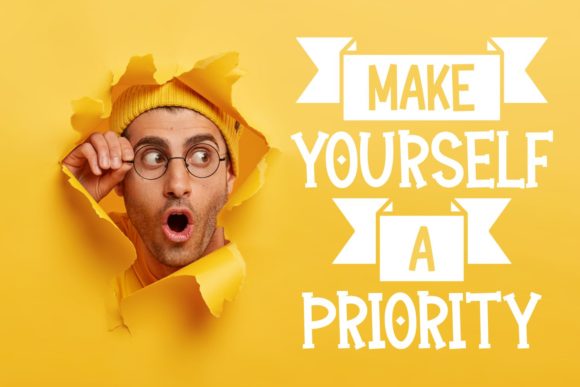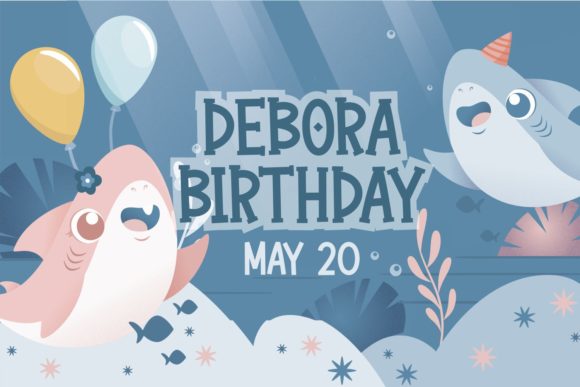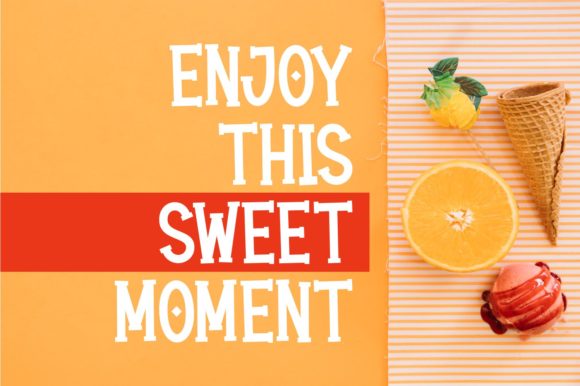
Introduction to Our Home Play Font
Have you ever been sitting in the stands, watching a thrilling sporting event, and thought to yourself, “This moment needs a font to match its energy”? That’s exactly what inspired the creation of Our Home Play Font – a bold, daring display font designed to capture the excitement of high-speed action. With its thick, chunky letters, Our Home Play Font is the perfect design resource for any project that needs to convey a sense of power and dynamism.
Whether you’re a designer working on a creative project for a sports team or a racing event, Our Home Play Font is a valuable addition to your design library. Its high-quality design makes it a great choice for any application that requires a clear and eye-catching visual identity. And the best part? Our Home Play Font is available for free download, complete with a transparent background, making it easy to integrate into your design.
Key Features of Our Home Play Font
- High-quality design resource perfect for a creative project, ideal for use in various applications such as logos, branding, and graphics.
- Unique, playful design featuring a transparent background, allowing for easy layering and customization.
- Comprehensive character set, including uppercase and lowercase letters, numbers, and special characters.
- Perfect for creating a friendly, approachable atmosphere in designs, making it an excellent choice for children’s products, educational materials, and more.
- Our Home Play Font is designed to be easily readable and versatile, suitable for a wide range of design projects and applications.
Honest Review: Our Home Play Font
As a designer, I’m always on the lookout for high-quality design resources that can elevate my creative projects. Recently, I had the chance to try out the Our Home Play Font, and I’m excited to share my honest review.
- Playful and modern aesthetic: The Our Home Play Font has a unique, modern feel that can add a touch of whimsy to any design project.
While the Our Home Play Font is a great addition to my design library, I do have a few limitations to note. The font only includes uppercase and lowercase letters, which may limit its use for certain design projects. Additionally, the font doesn’t include any special characters or punctuation marks.
Overall Impression
Overall, I’m impressed with the Our Home Play Font. It’s a high-quality design resource that can add a unique touch to my creative projects. While it has a few limitations, I think it’s a great option for designers looking for a free, high-quality font with a modern aesthetic.
To get the most out of Our Home Play Font, use it with a transparent background to create a clean and modern look. Experiment with different font sizes, colors, and combinations to achieve a unique design.
Our Home Play Font is perfect for various creative projects, such as: social media graphics, presentations, posters, logos, graphics, reports, documents, and more. With its high-quality design and free download, it’s an excellent resource for designers and non-designers alike.